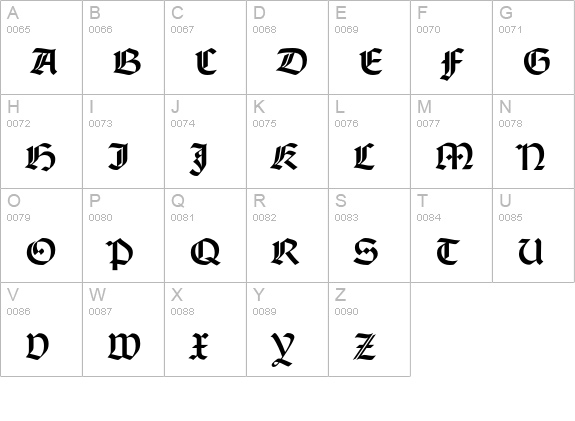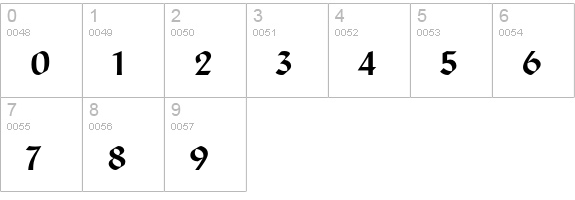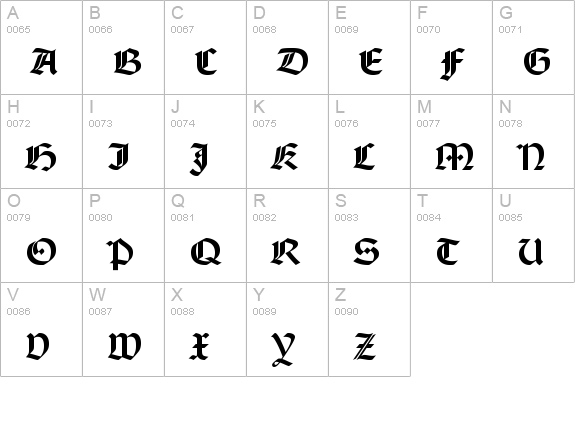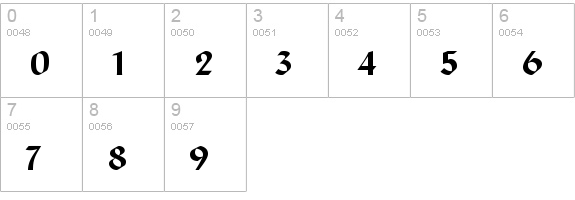
SanMarcoCyr Font Details
SanMarcoCyr is a stunning font that embodies elegance and sophistication. Its sleek and stylish curves make it perfect for a wide range of design projects, from branding and logo designs to wedding invitations and luxury packaging. With its timeless appeal, SanMarcoCyr adds a touch of class to any creative endeavor. This font's versatility is matched by its exceptional legibility. Whether used in large headings or small body text, SanMarcoCyr maintains its clarity and readability, ensuring that your message is effortlessly conveyed to your audience. Its carefully crafted letterforms exude professionalism and attention to detail, making it a top choice for designers who value precision and finesse. One of the most remarkable features of SanMarcoCyr is that it is available for free download at FontsMarket.com. This makes it easily accessible to designers and creatives, enabling them to elevate their projects without any financial constraints. By offering this font free of charge, SanMarcoCyr empowers designers to bring their visions to life without compromising on quality or budget. Whether you're working on a personal project or a client's brief, SanMarcoCyr is the ideal font to add a touch of sophistication and elegance. Its timeless design and accessibility make it a must-have in any designer's toolkit. Download SanMarcoCyr for free at FontsMarket.com and unlock a world of possibilities for your next creative endeavor.